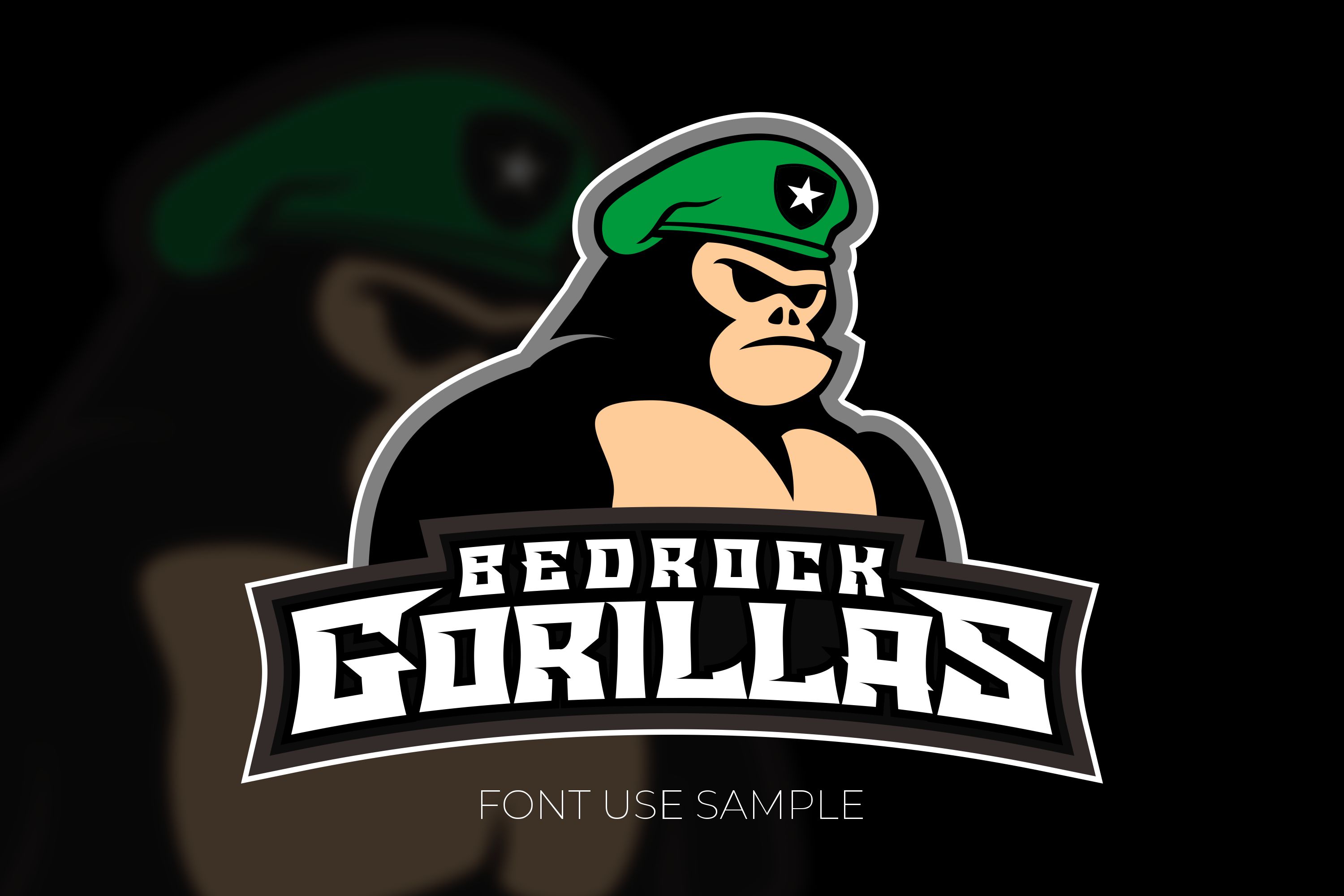
DESCRIPTION Esporta is a new display font that made to cross the limit on what a sports font is capable of. It was initially made specifically for Esports Logotype but then turns out it has a lot of potential.. And it’s all up to you.. This font can be used for any variety purpose, such as: Sport & Esport Logo, Martial Arts, Band & Musical Theme, Championship Logo, Event Logo and Clothing logo.
FEATURE Allcaps, Numbers, Punctuations, Symbols and 2 sets of Alternates